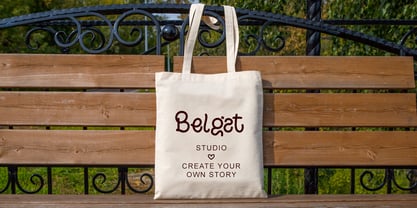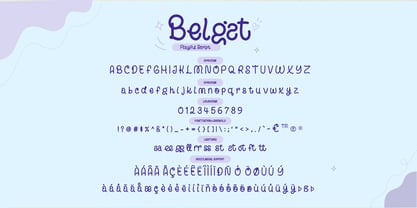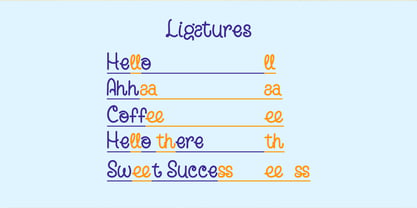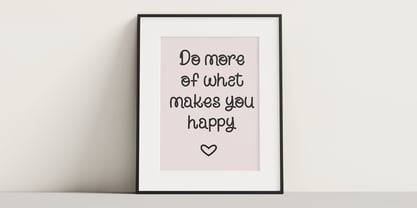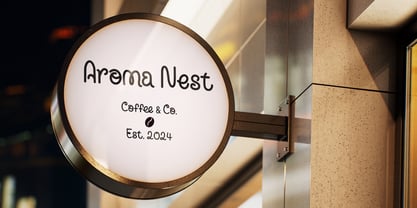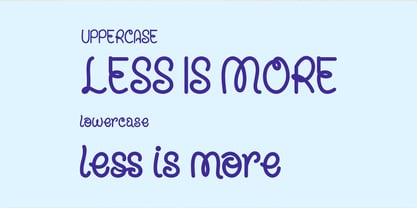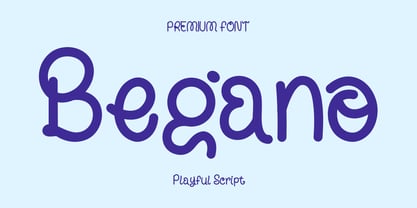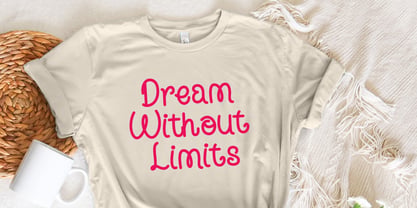
Begano
von Fontysia
Die Schriftfamilie Begano wurde von Rizal Aiyub entworfen und von Fontysia veröffentlicht. Begano enthält 1 Stile. Mehr über diese Familie
Begano is a playful script font featuring cute handcrafted letterforms, smooth curves, and a cheerful personality. Perfect for children's products, branding, logos, packaging, invitations, social media graphics, greeting cards, posters, quotes, and fun creative projects. Includes multilingual support, numbers, punctuation, and ligatures to help create unique typography designs.
Designer: Rizal Aiyub
Foundry: Fontysia